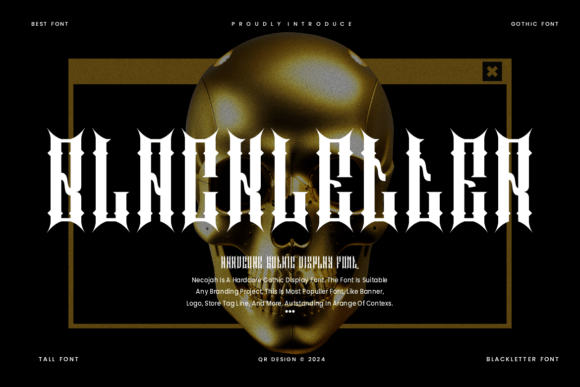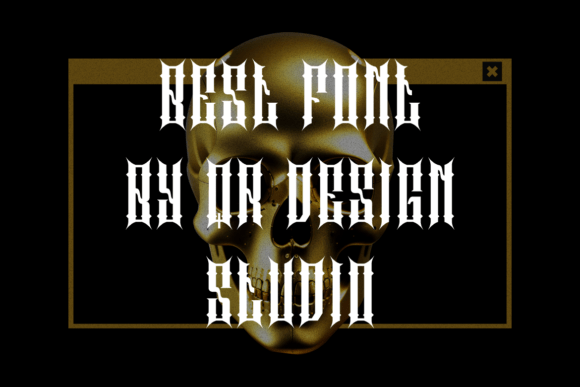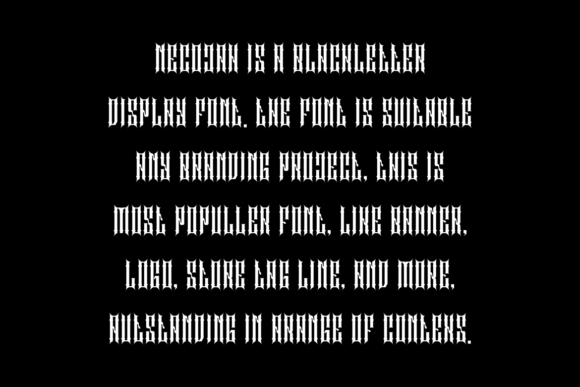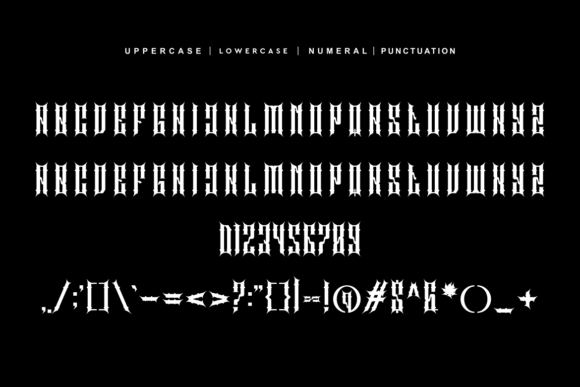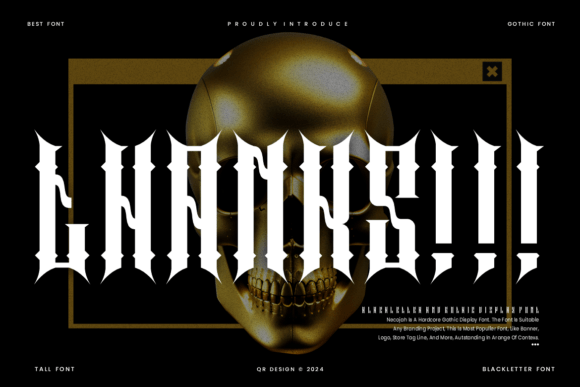
Introduction to Necojah Font
Necojah is a bold and authentic display font.
The font is suitable for any branding project, like logos, sports, and many more Outstanding in a wide range of contexts.
Key Features of Necojah Font
Why Choose Necojah Font?
Necojah Font offers exceptional quality and versatility, making it a valuable addition to your design toolkit. Whether you’re creating for personal projects or commercial use, Necojah Font delivers professional results.